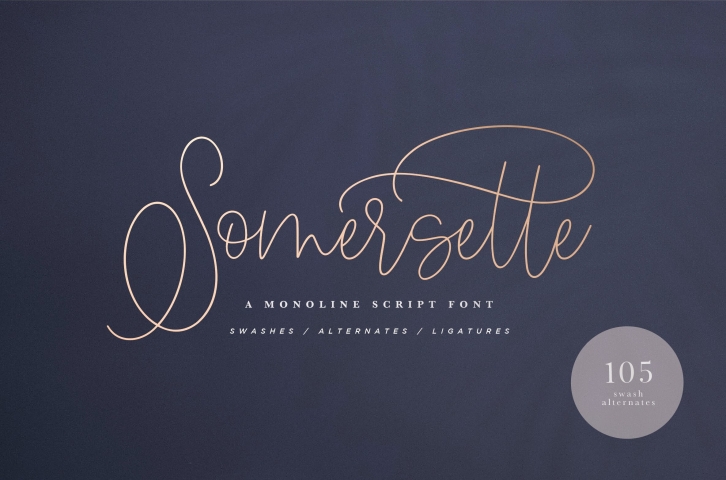
Introducing the elegant new Somersette Monoline Script Font! If you are needing a touch of casual chic calligraphy for your designs, this font was created for you!
Somersette was built with OpenType features and includes beginning and ending swashes, alternate characters for both lowercase and uppercase letters, loads of different swash alternates for lowercase letters, numbers, punctuation, alternates, ligatures and it also supports other languages :) Over 500 glyphs!